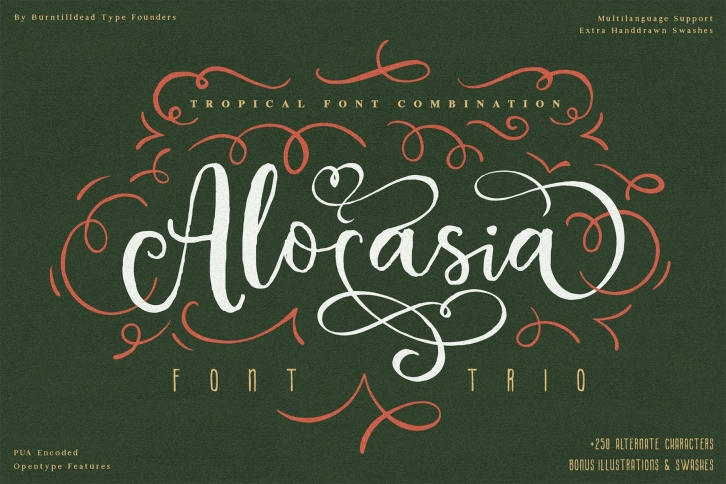
Alocasia-Trio Font Combination Download
Alocasia-Trio Combination is a great font that was designed by Burntilldead. Imagine the amount of combinations you can create using this font! The archive is 8.70 MB and it was released on June 30, 2020. Alocasia-Trio Combination looks beautiful on wedding invitations, greeting cards, logos, posters, labels, t-shirt designs, logos, business cards and is perfect for use in ink or watercolor works, fashion, magazines, packaging and food menus, children's books and more!